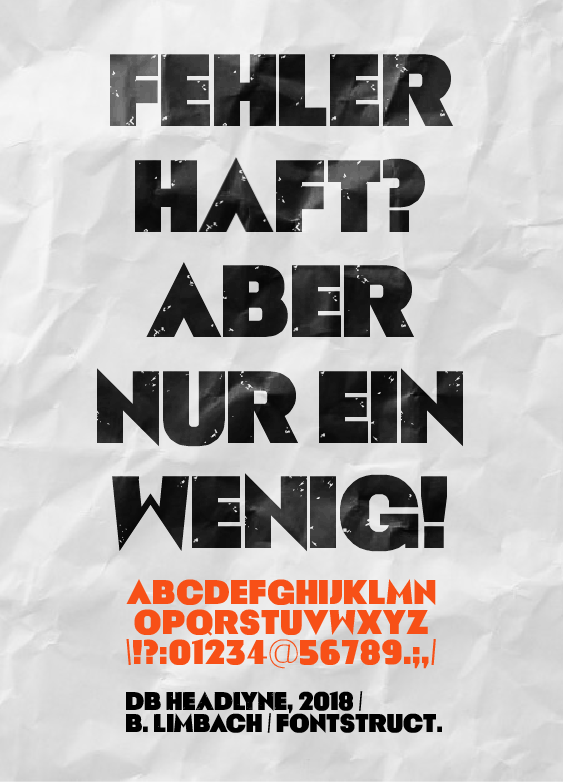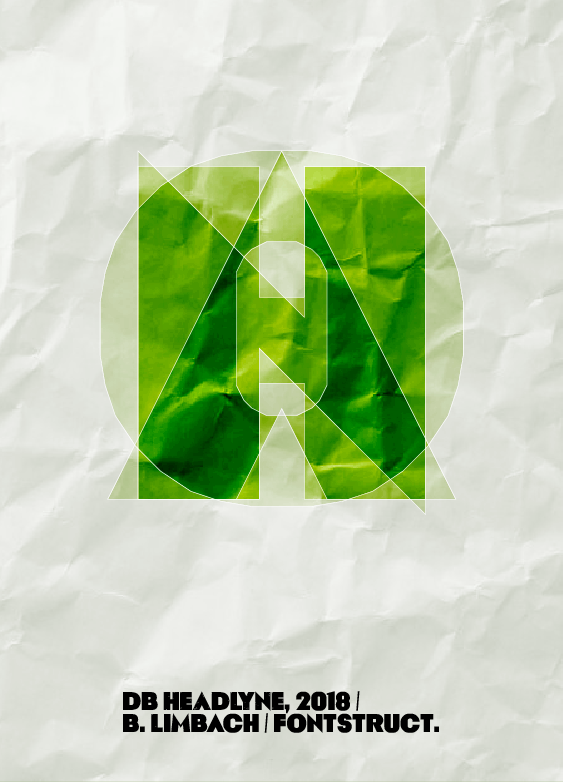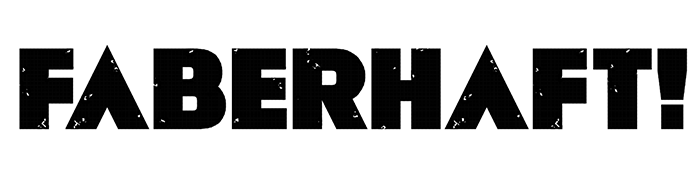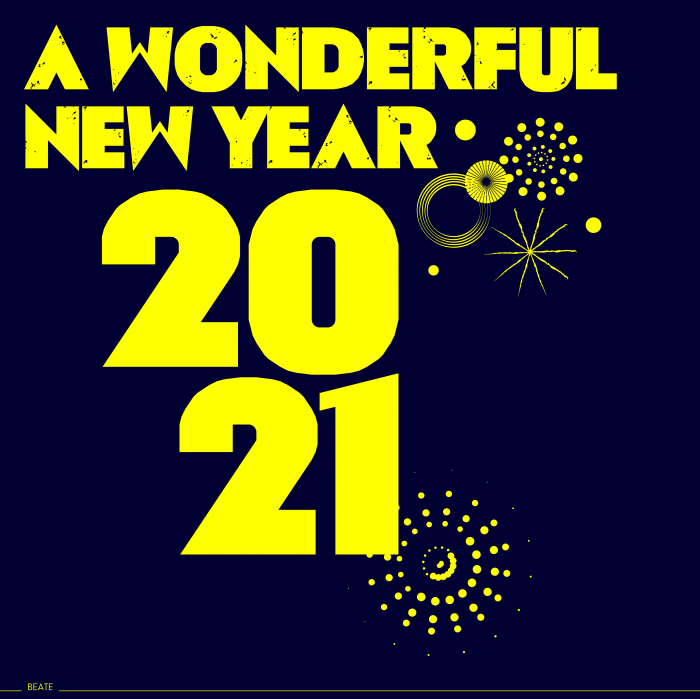
Superb! Stilettos, chrome and leather. Boxy, but Sexy AF 10/10
why are there no lowercase letters?
@GideonMax The lowercase are the uppercase without holes...
SCULPTURES
Aged fonts are cool too!
WHY ARE THERE HOLES IN UR **** TEXT???????????????????????????????????????????????????
@_Kio I'm pretty sure the holes in the Capitals were intentional... Also, please don't say the F-word...
@ Kio: #1>a question or comment needs no unsuitable language #2>tag says BROKEN  hence holes are an essential design element #3>designers know what they want to show, need to convey, or might have been asked to create or use
I like his fonts...
I admire Beate's skill and vision; sheinvests a lot of time and typographic understanding in her fonts. All the fonts she creates are completely novel, clearly she is a talented designer and obviously successful in her work.
I wonder when he wil will the holey numerals for this font...
will add*
Heavy sans serif font with some twist. Letters A, N, V, M, and W break the monotony with sharp angles. The upper case letters are sprinkled with random imperfections, just enough to give them realistic texture. Full extended Latin character set including the Estimated (℮) and Partial Differential (∂) symbols. Impressive. 10/10